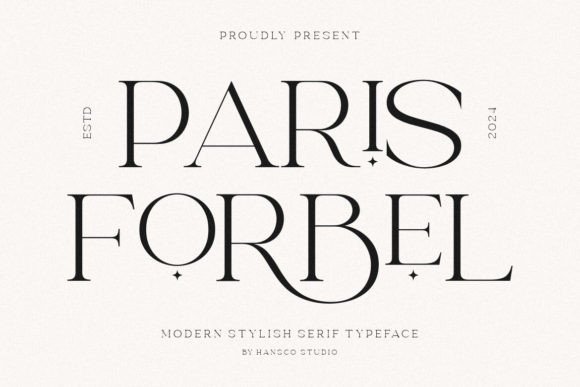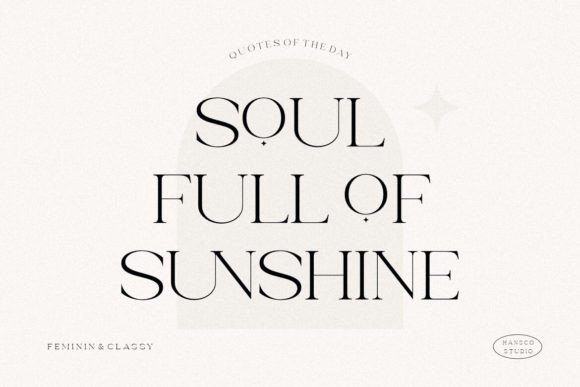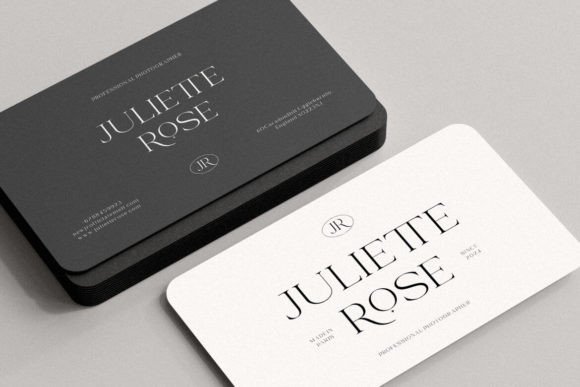
Paris Forbel Font
About the Paris Forbel Font
The Paris Forbel Font offers a perfect balance of form and function for your design needs. Paris Forbel Font is a elegant display serif font with modern look that is perfect for multipurpose projects. I made Paris Forbel Font inspired by the concept of romantic vibes and made it into a unique yet luxury style. This font is also looks fabulous and will fit well in any design and very recommended for logo, crafts, posters, books, branding, quotes, print templates, packaging, invitations, product labels, advertising, wedding project and more.
Paris Forbel’s elegant, modern serif design excels in display contexts such as headlines, logos, and short-form text on packaging or posters. Its luxurious feel makes it ideal for branding projects targeting high-end or sophisticated audiences. However, its delicate details make it less suitable for body text or UI elements requiring high readability at smaller sizes.
Pairing Paris Forbel effectively requires considering its inherent elegance. A clean sans-serif like Lato or Open Sans provides a strong contrast and improved readability for supporting text. For a more playful feel, a rounded sans-serif like Montserrat can soften the formality. Alternatively, a delicate script font could add a touch of additional romanticism, but should be used sparingly.
The overall personality of Paris Forbel is sophisticated and romantic, leaning towards a modern interpretation of classic elegance. It’s best suited for projects emphasizing luxury, refinement, and a touch of vintage charm.